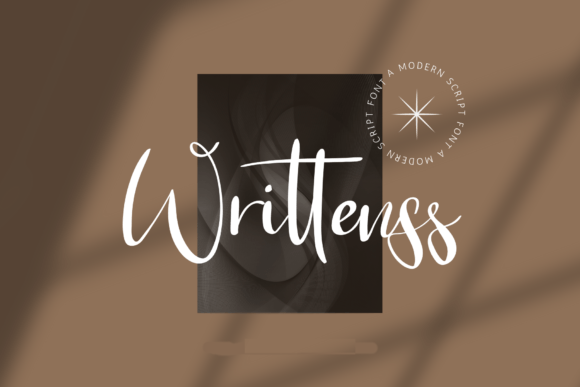
Behold the Writtenss Font, a Typographic Masterpiece Inspired by the Art of Written Expression
In a world adorned with digital artistry, the Writtenss Font emerges as a radiant beacon of creativity, beckoning writers, designers, and visionaries alike to embrace the beauty of handwritten expression. This exquisite script font, lovingly crafted by Cotton White Studio, is a testament to the power of words and the emotions they evoke.
Writtenss is not merely a collection of characters; it's a symphony of flowing lines and graceful curves that dance across the page, evoking a sense of elegance and sophistication. Each letter is a work of art, meticulously designed to capture the essence of handwritten elegance, ensuring that your words leave an indelible mark on the hearts and minds of your readers.
Whether you're a seasoned author seeking to breathe life into your manuscripts, a graphic designer pursuing captivating visuals, or a social media enthusiast craving distinctive posts, the Writtenss Font is your ultimate companion. Its versatility knows no bounds, adapting seamlessly to a myriad of creative endeavors, from heartfelt love letters and captivating blog posts to eye-catching social media graphics and mesmerizing book covers.
Immerse yourself in the Writtenss experience and witness the transformation of your creative visions into tangible masterpieces. Let your words flow freely, guided by the delicate strokes of this enchanting font, and watch as they ignite imaginations and stir emotions.